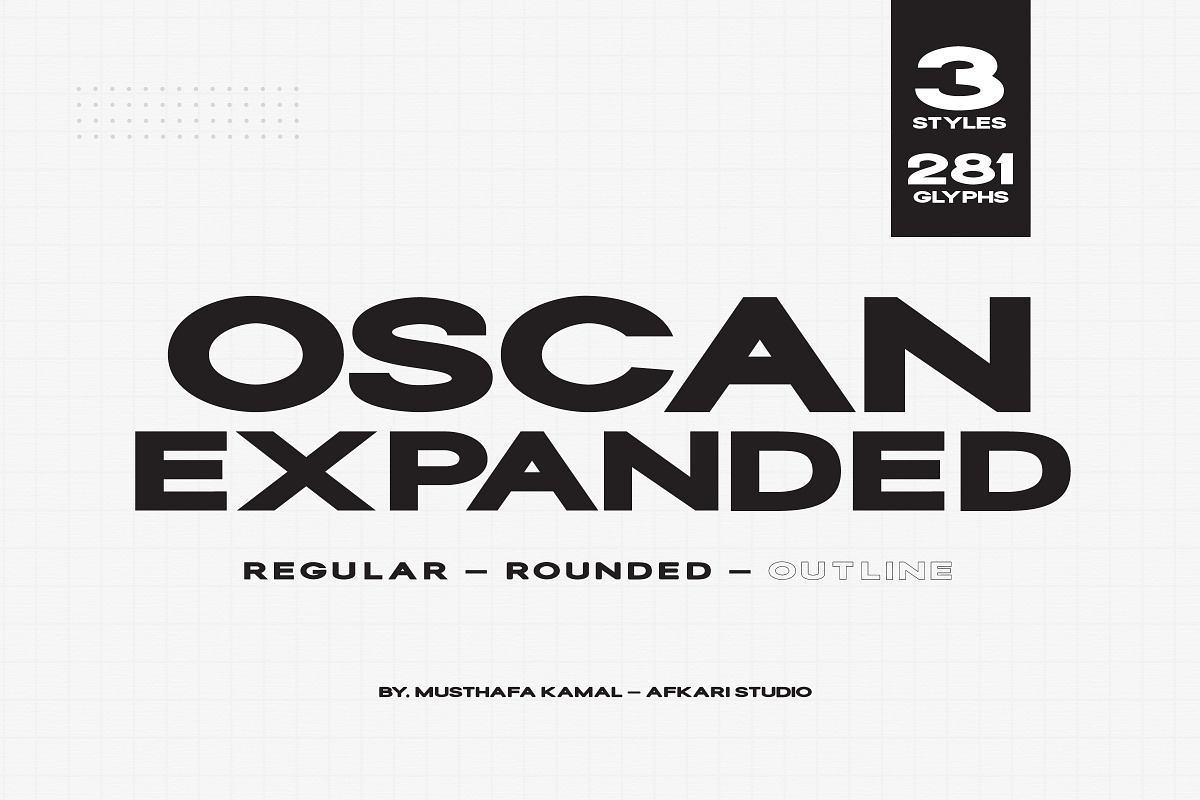
Oscan Expanded - Display Sans Serif Free Download
Oscan Expanded – Display Sans Serif Font Free Download
Oscan Expanded – Display Sans Serif Font Free Download is a bold, wide-set typeface designed to command attention with its strong presence and clean lines. Perfect for headlines, posters, branding, web banners, and modern editorial layouts, this font delivers high impact with a sleek, professional look.
With its extended letterforms and minimalistic geometry, Oscan Expanded – Display Sans Serif Font Free Download adds a futuristic and stylish vibe to any design. It's especially effective in tech, fashion, and sports branding—anywhere you want to make a bold statement while maintaining clarity and elegance.